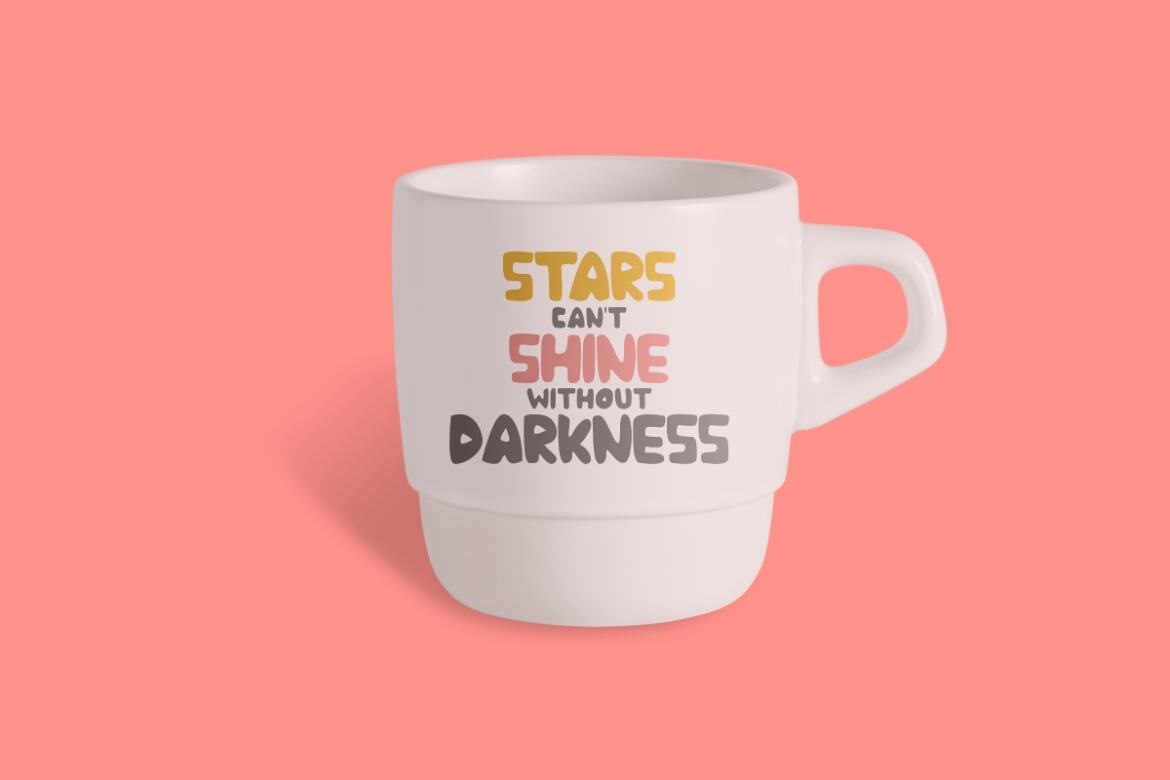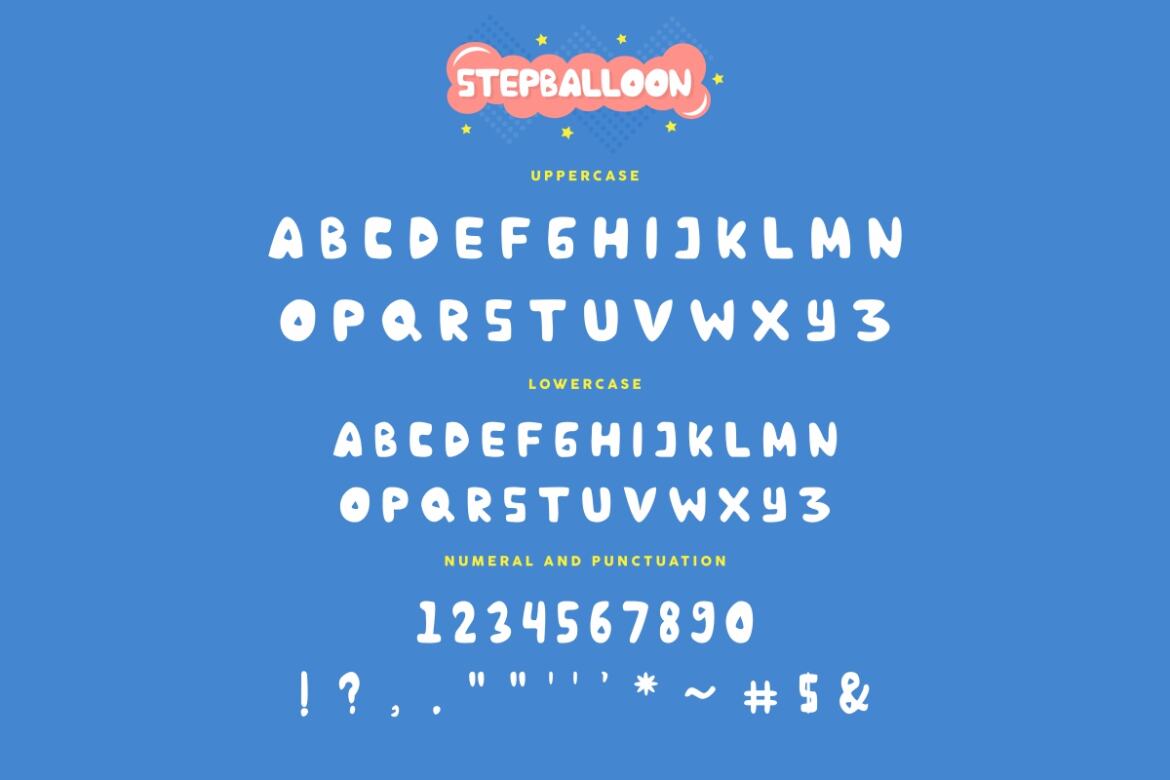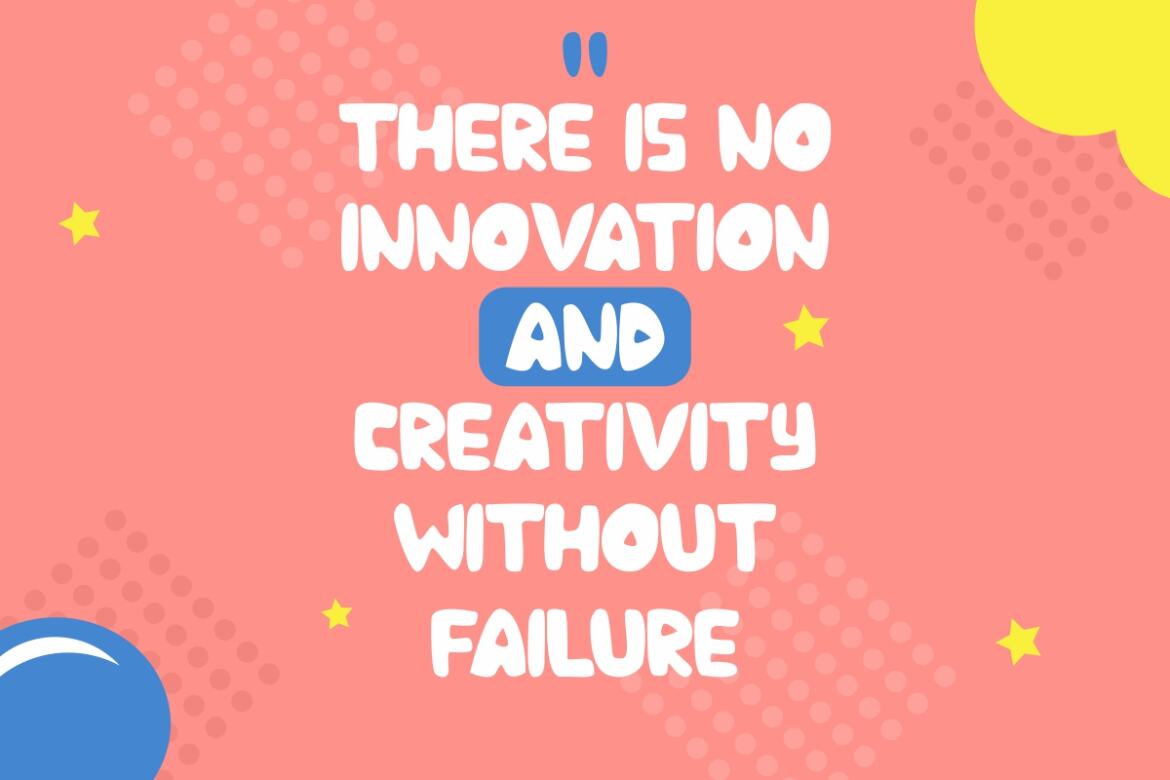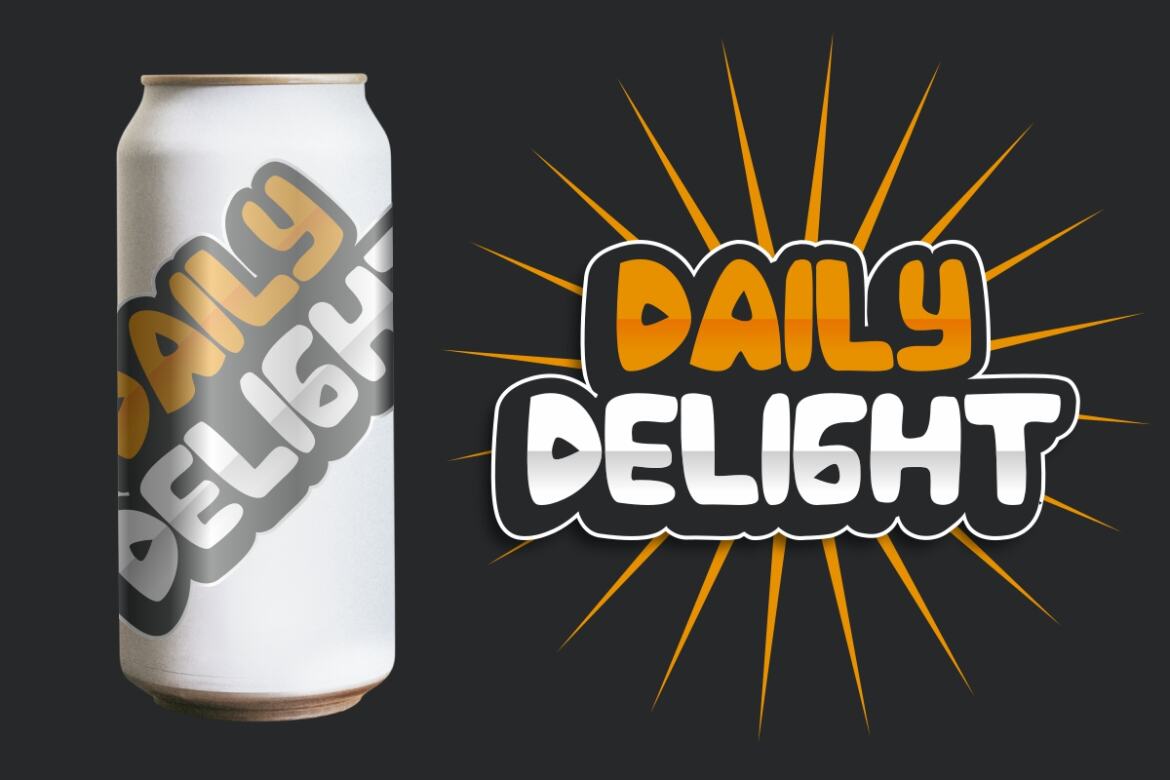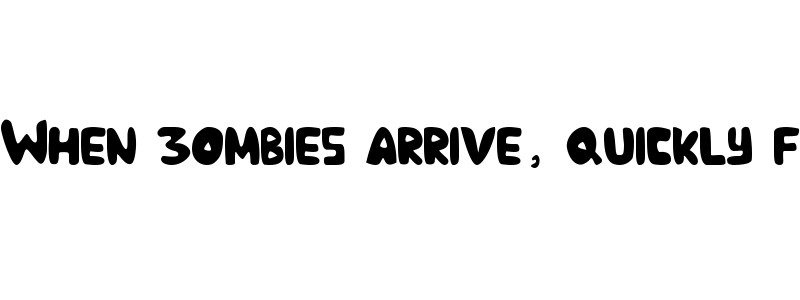
Stepballoon
Stepballoon is a unique Comic font with balloon-like shape writing style effect. We made it uniquely with unique edges and special shapes. The font will looks good for many projects : game, children books, products, merchandising, cover, banner, tags, cards etc. It will be great for fun projects, kids theme, school, science project etc Stepballoon Comic Font will Work on PC & Mac with Simple installations. Accessible in the Adobe Illustrator, Adobe Photoshop, Adobe InDesign, even work on Microsoft Word. It’s also PUA Encoded Characters – Fully accessible without additional design software. Lets go, download “Stepballoon Font” Now!